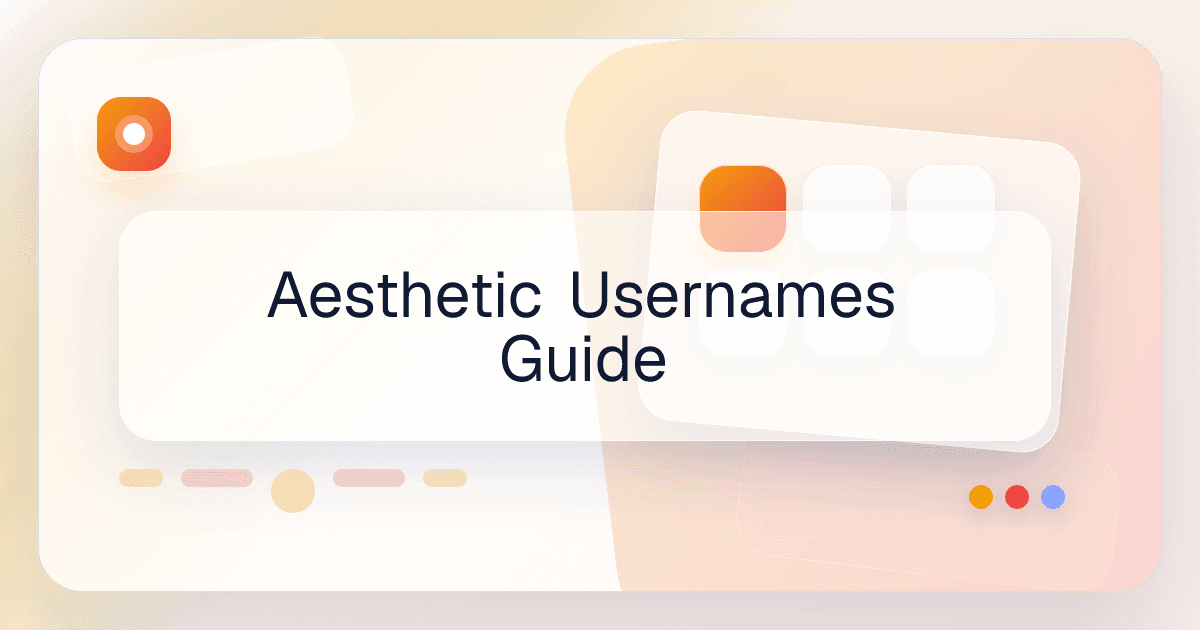
Aesthetic Usernames Guide
Aesthetic usernames work when they feel intentional, not random. The best ones combine a clean name idea, a clear tone, and one text treatment that fits the audience or niche.
Start with the raw username idea
Before styling anything, pick a name that is short, pronounceable, and easy to remember. A strong raw handle performs better than a weak name with decoration added on top.
Choose one visual direction
Soft script, premium double-struck, bold sans, and compact small caps each create different identity signals. Pick one direction and use it consistently.
Keep a readable backup
Some apps or profile fields do not render every Unicode variation the same way. It helps to keep a cleaner alternate version ready for usernames or public-facing handles.
What makes a username feel aesthetic?
Strong aesthetic usernames are usually short, emotionally consistent, and styled with one clear visual direction instead of multiple competing effects.
Are decorative usernames good for every platform?
No. Decorative text works best where Unicode styling is displayed consistently. For stricter platforms, keep a cleaner fallback ready.